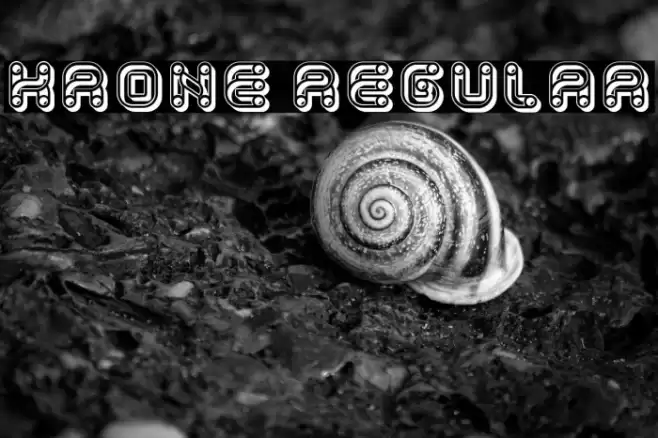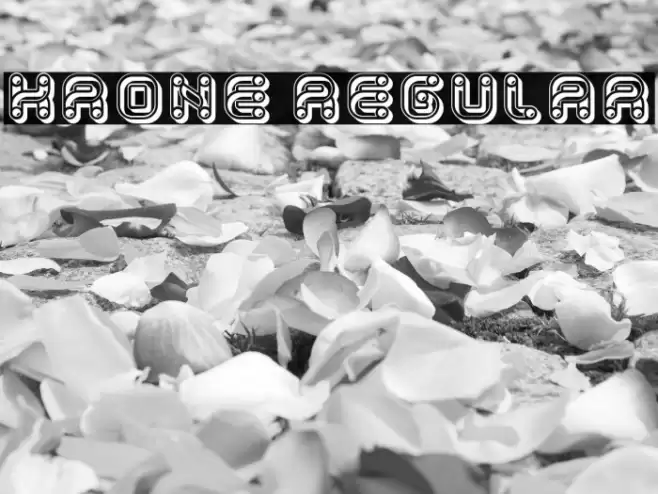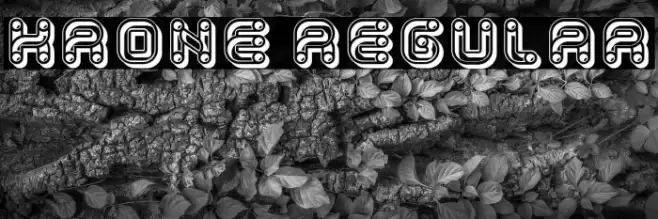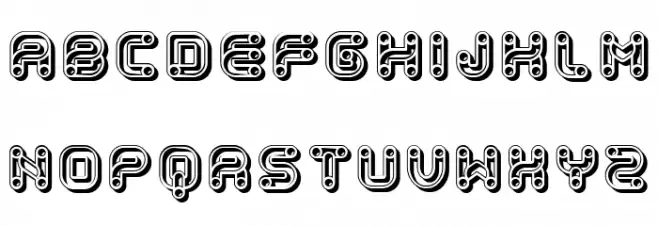
Krone Regular Font
Krone Regular Description
This font features a bold, futuristic design with a unique circuit-like pattern within each character. The letters are outlined with a thick black border, creating a striking contrast against the white interior. The geometric shapes and rounded edges give it a modern and technological feel, making it ideal for projects that require a digital or sci-fi aesthetic. The font maintains a consistent weight and width across all characters, ensuring uniformity and readability. Its decorative style is eye-catching and suitable for creative and innovative designs.
A bold, futuristic font with a circuit-like pattern and strong contrast from Decorative fonts.
- Proposed Projects: Ideal for technology-themed posters, sci-fi book covers, video game titles, and digital branding.
- Overall Style: Futuristic, Technological